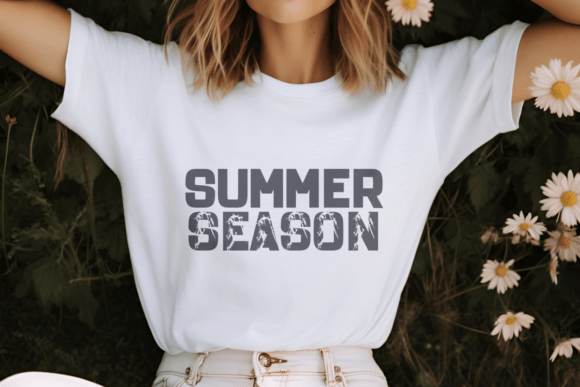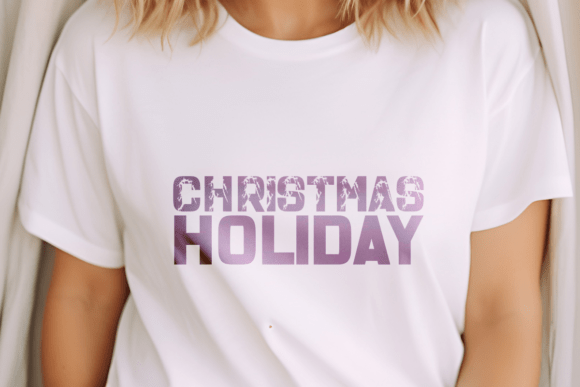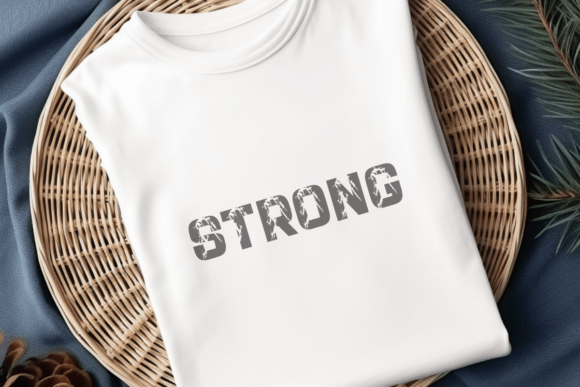
Introduction to Funnychristian Regular Font
Remember that moment when you stumbled upon the perfect font for your holiday project? The one that made all the difference in taking your design from bland to grand? For many of us, that moment is a game-changer. And for designers looking to add a touch of festive charm to their winter-themed projects, that moment might just be finding the Funnychristian Regular Font.
This bold sans serif font is more than just a design resource – it’s a must-have for any designer or print-on-demand seller looking to create high-quality, eye-catching holiday designs. With its rugged yet festive charm, the Funnychristian Regular Font is perfect for a wide range of creative projects, from t-shirt quotes and mugs to wooden signs and sublimation crafts.
- Unique design style: The Funnychristian Regular Font features a unique design style, making it an excellent choice for designers seeking a distinctive look for their creative projects.
Honest Review: Funnychristian Regular Font
I recently had the chance to work with the Funnychristian Regular Font for a creative project and I must say, I was quite impressed. This high-quality font has a unique style that adds a touch of whimsy to any design. ✨
- Unique style that adds a touch of whimsy to any design
However, there are a few limitations to consider. The font can be a bit difficult to read in small sizes, and the style may not be suitable for all types of designs. ⚠️
Overall, I think the Funnychristian Regular Font is a great addition to any designer’s toolkit. It’s perfect for creative projects where you want to add a bit of personality and whimsy. With a little care and attention, this font can really make your designs stand out.